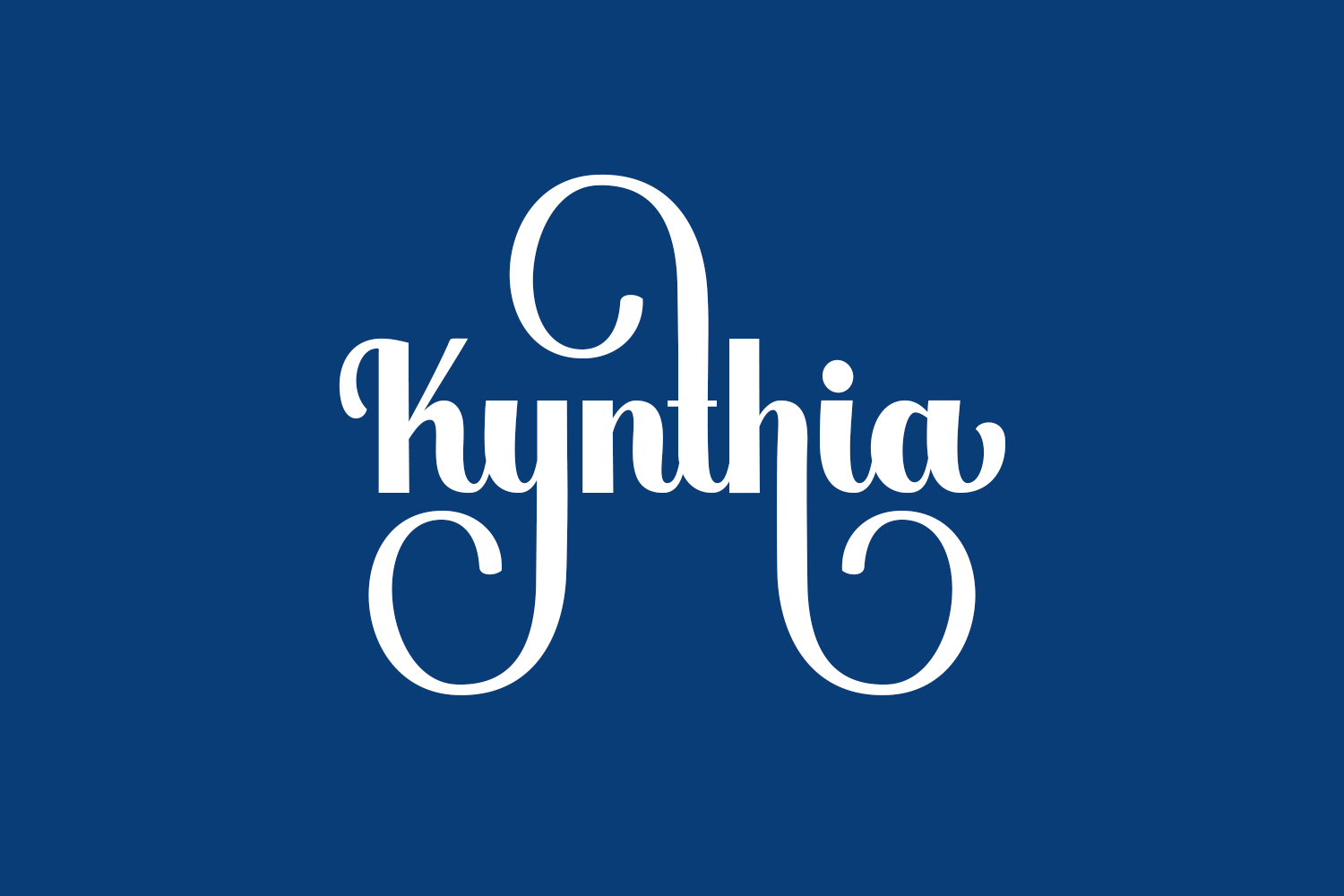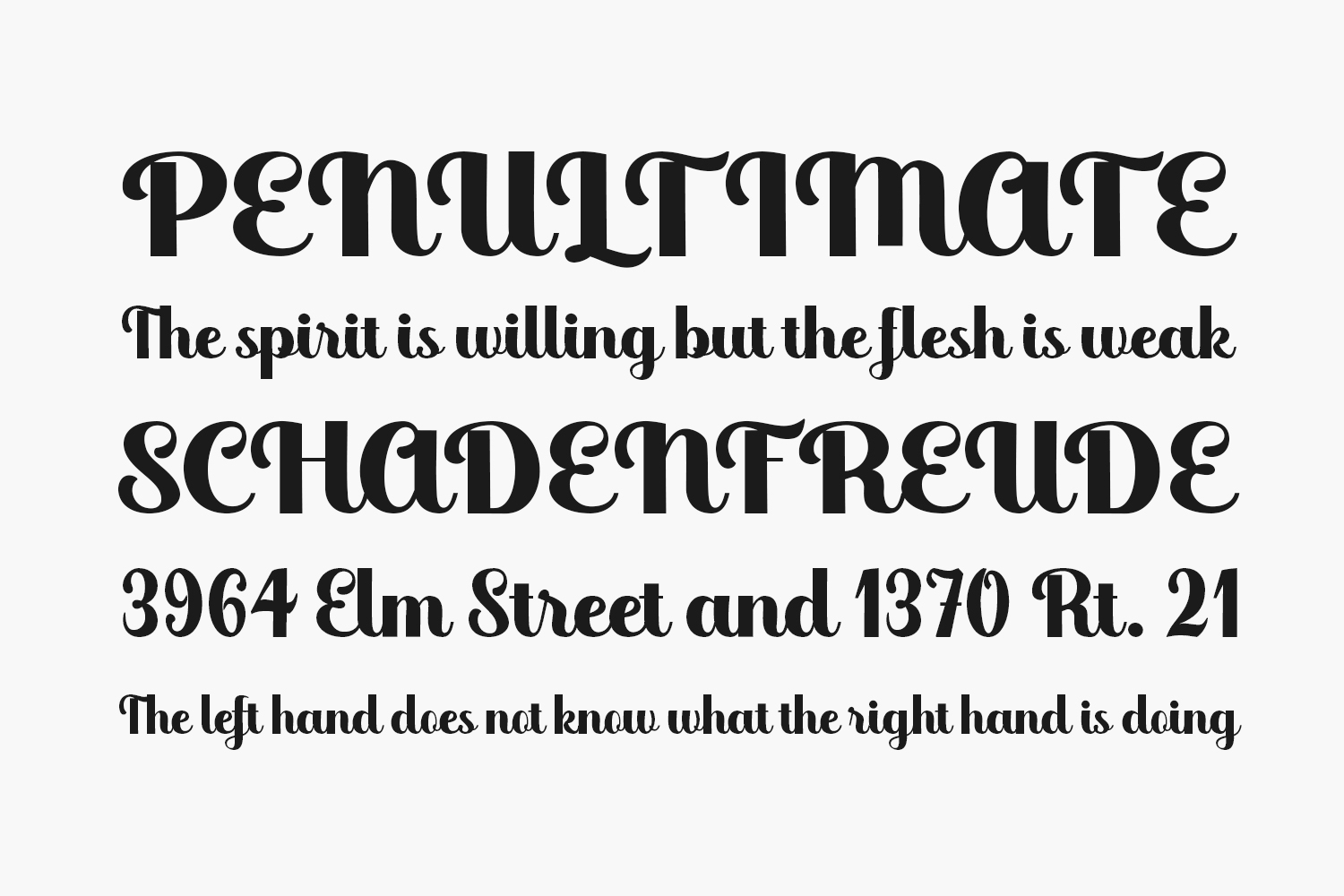
Kynthia Free Font is a stylish and bold looking handwritten font. Kynthia Free Font is free for personal use only. Please purchase the full version for commercial use.